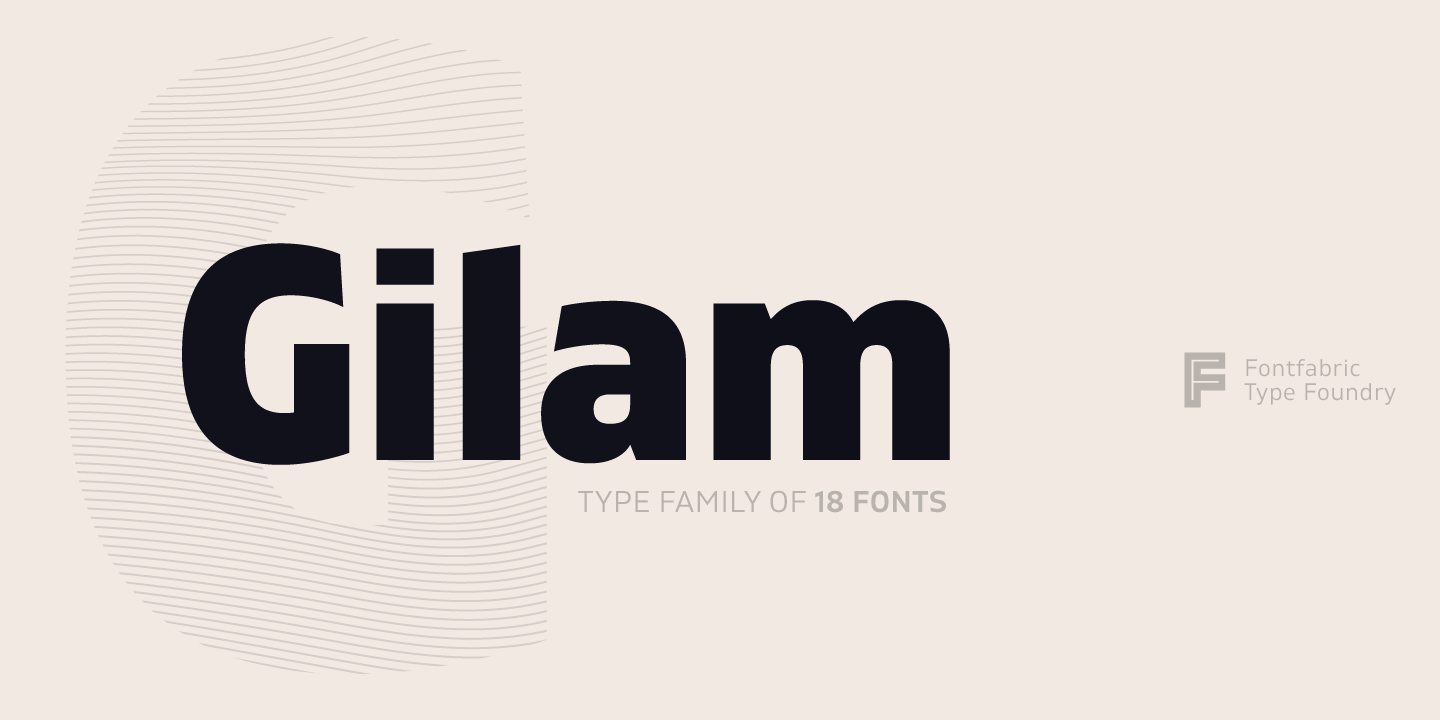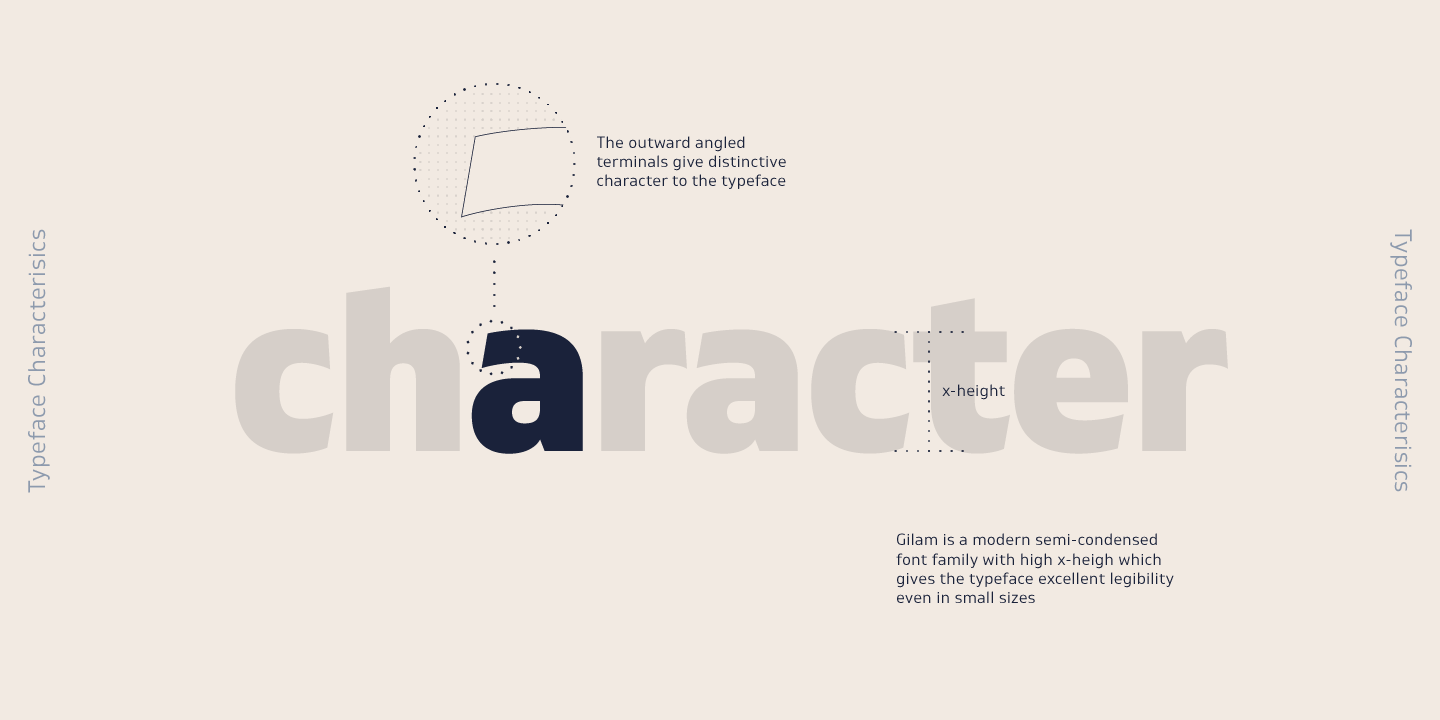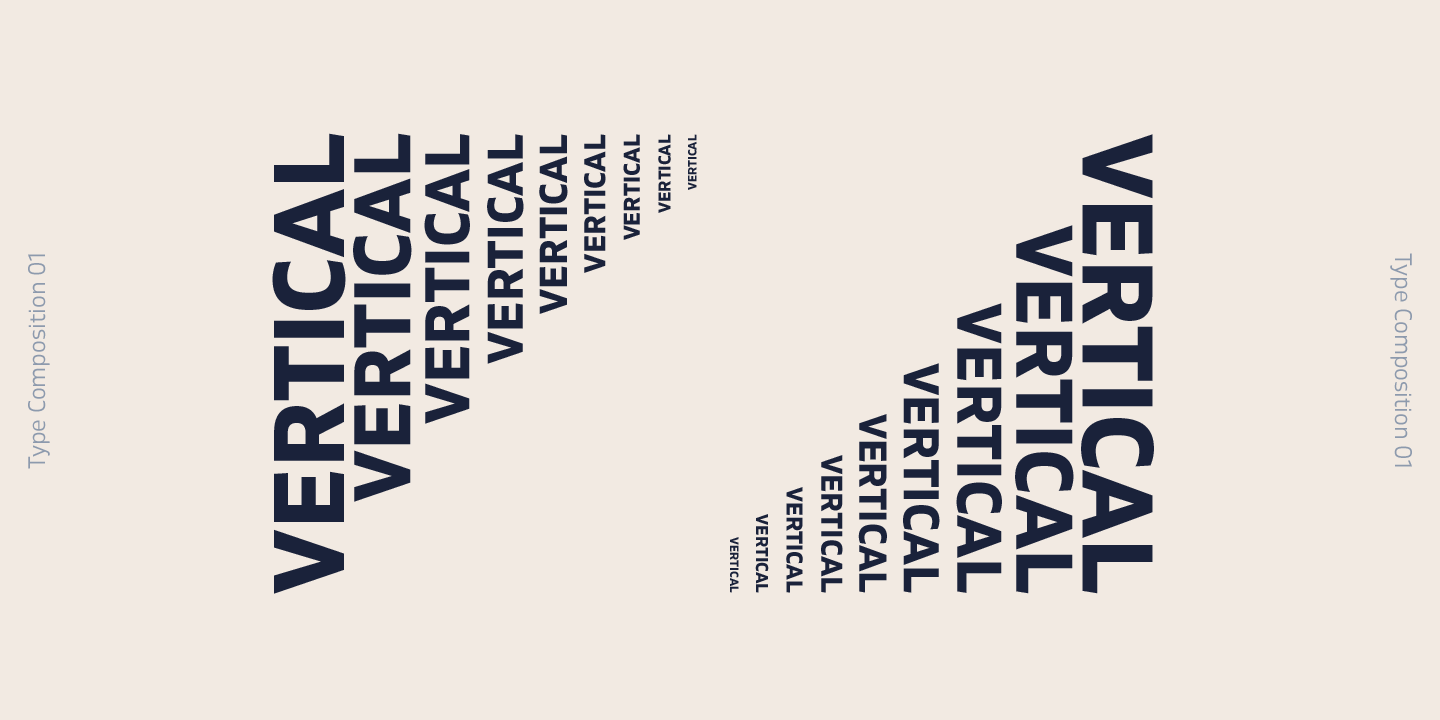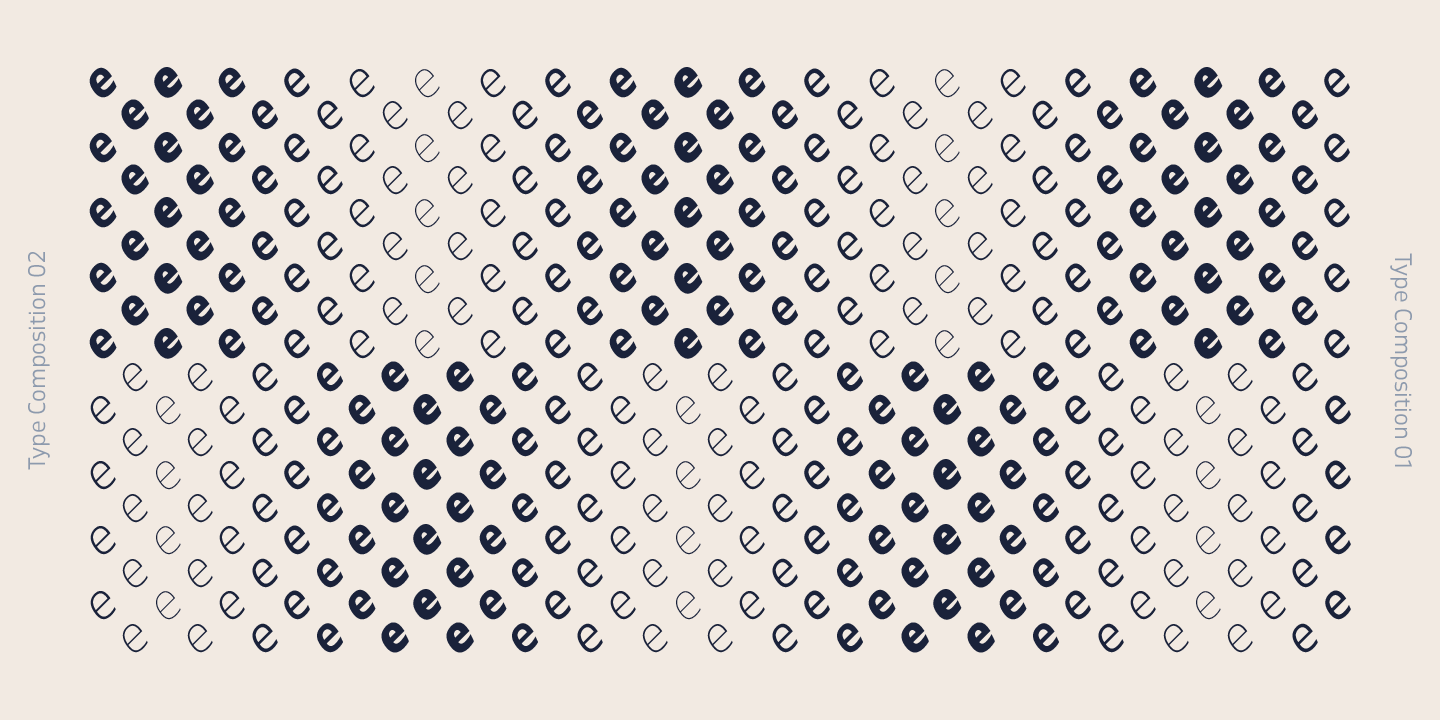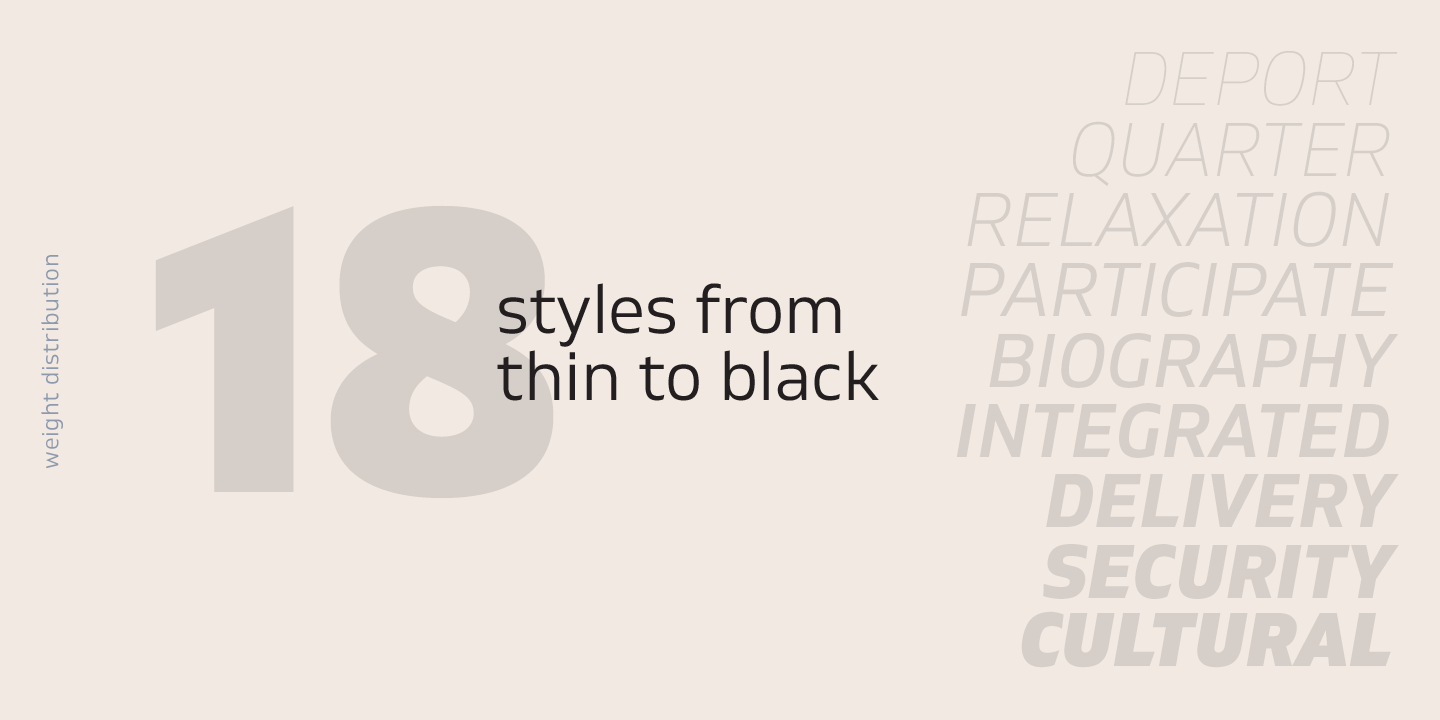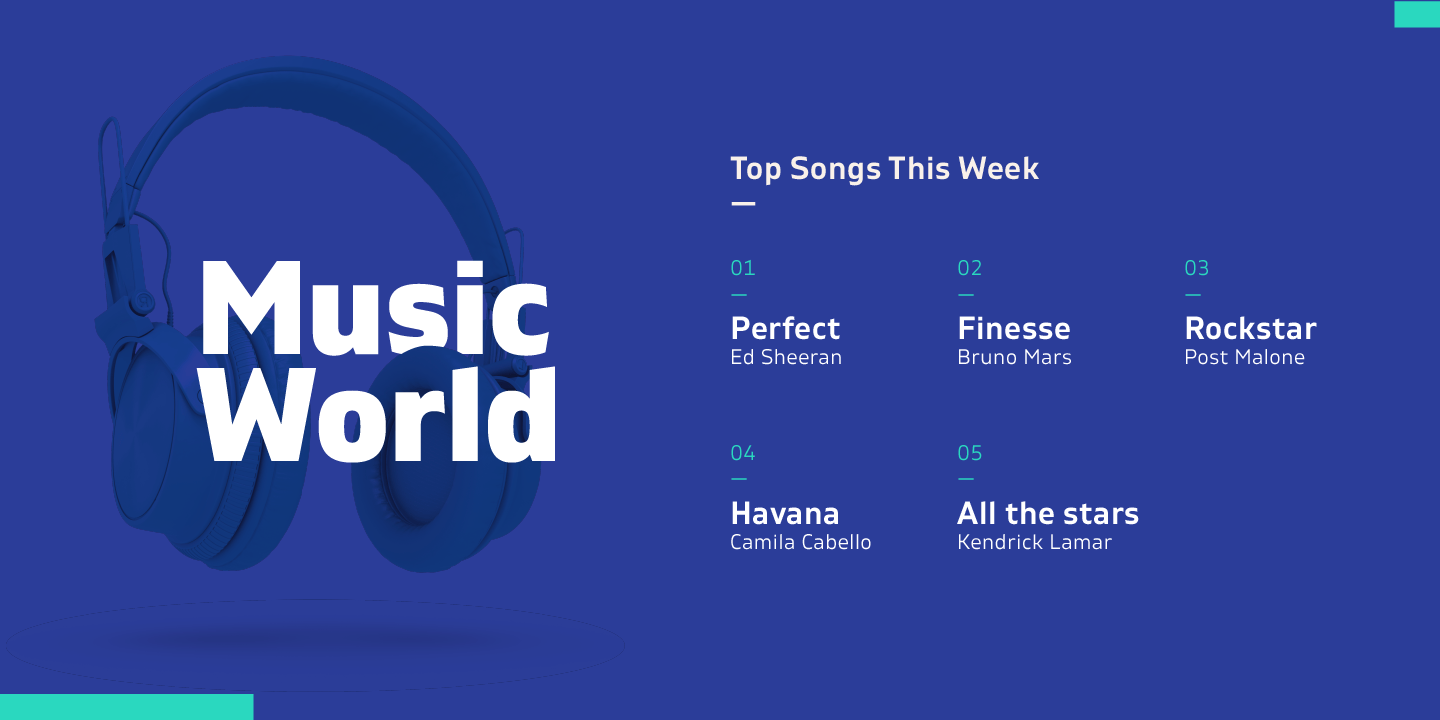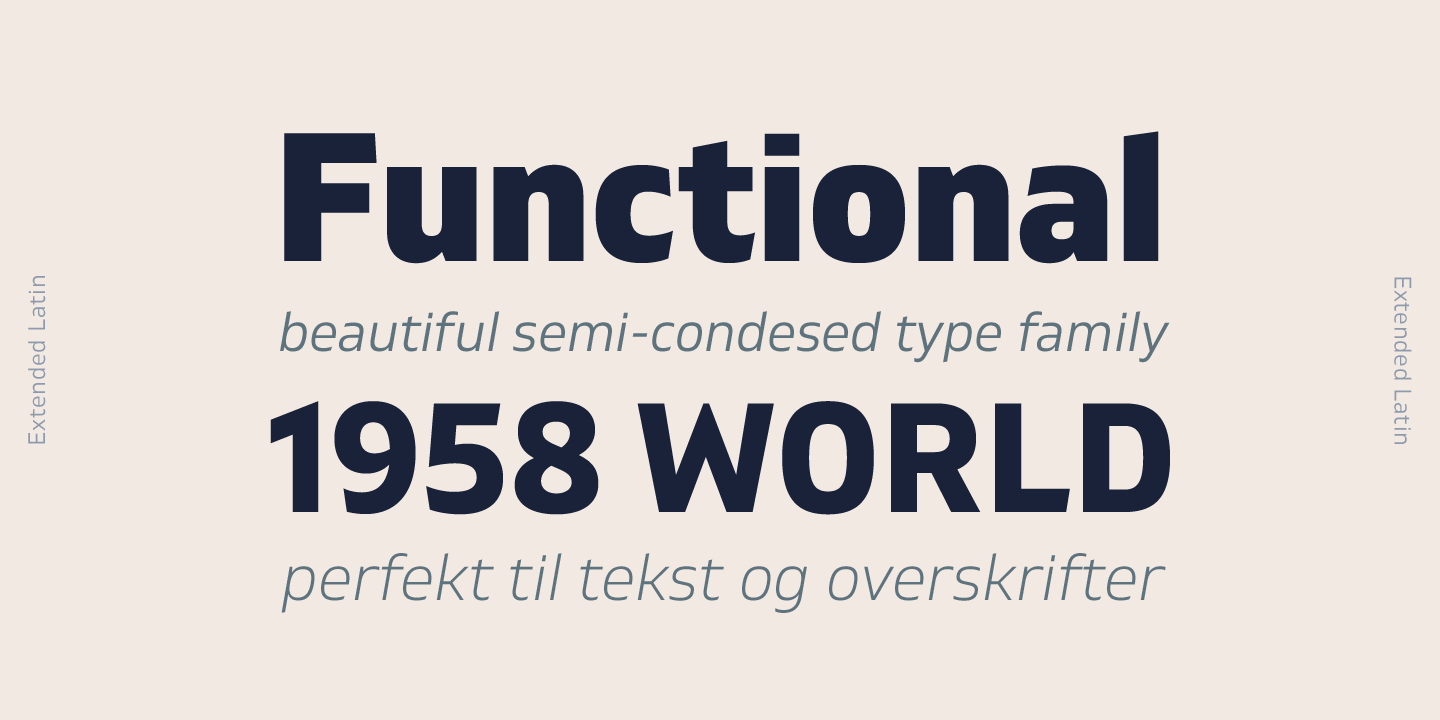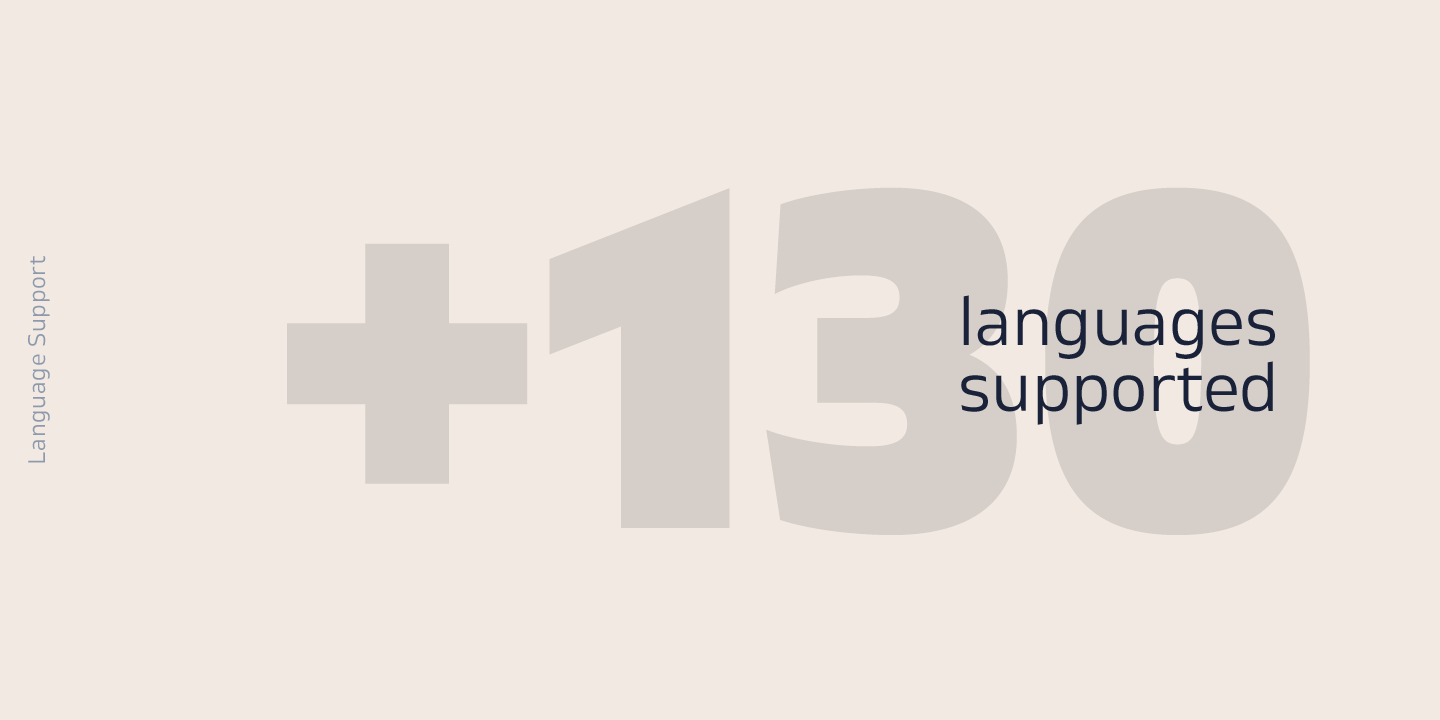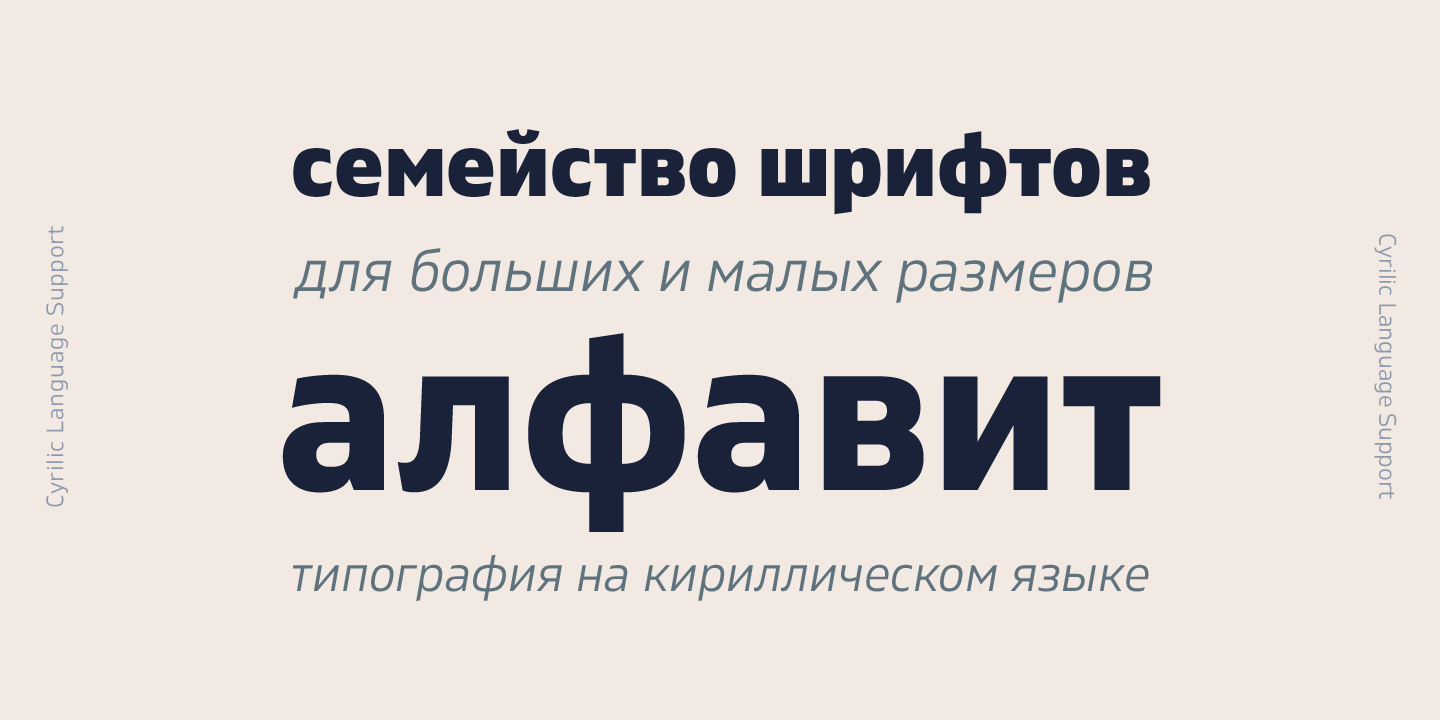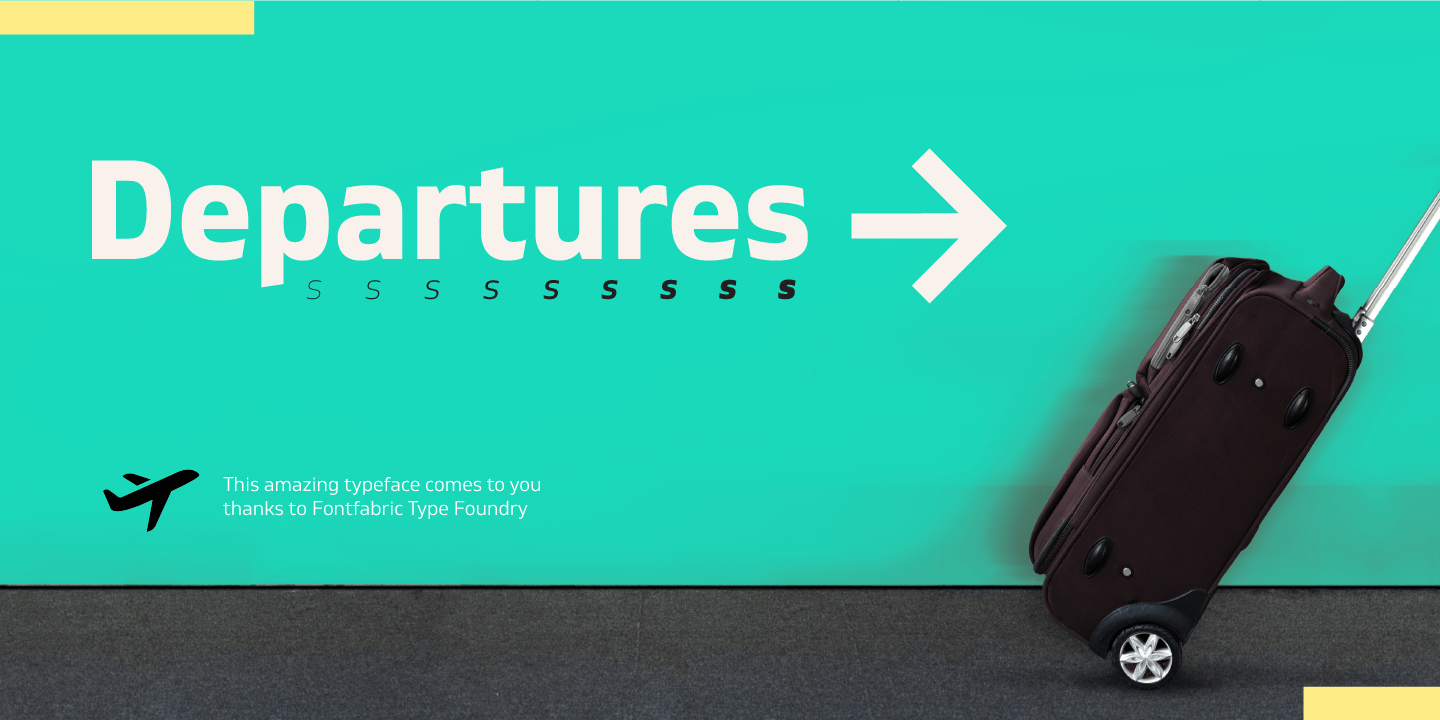
Gilam
Gilam is a sans serif font with semi-condensed proportions. The typeface was based on the famous DIN but combines its popular neo-grotesque look with characteristics, such as the pointed edges in the ?W? and ?M? as well as the outward cut terminals, which gives a distinctive look to the modern geometric typeface. The complete set of 9 weights plus italics gives to designers the absolute freedom to create anything. Perfect layouts with blocks of text, headlines, motion graphics, logos, apps, and websites are just part of the intended usage of this versatile typeface.
? 765 glyphs in 18 styles;
? Extended Latin, Cyrillic and Greek;
? Geometric forms and low contrast;
? Prominent x-height which makes it legible in a text;
? Perfect for headlines and logos;
? Suitable for web, print, motion graphics etc.
? Semi-condensed proportion;
? Advanced typographical support and OpenType features including case-sensitive forms, fractions, superscript and subscript characters, and stylistic alternates;
? Complete set of figures - old style and lining figures, which come with proportional and tabular variation;
Gilam means ?joy of people? so that you can enjoy it!